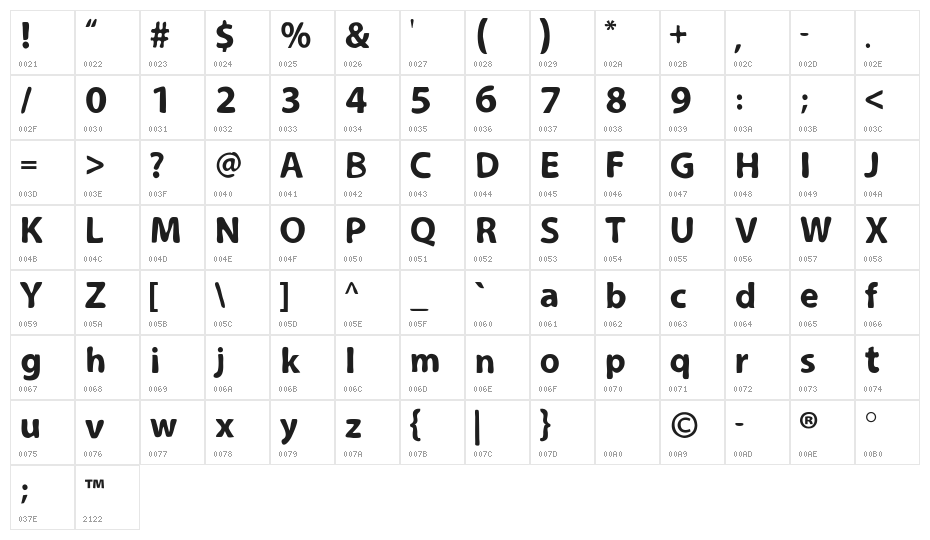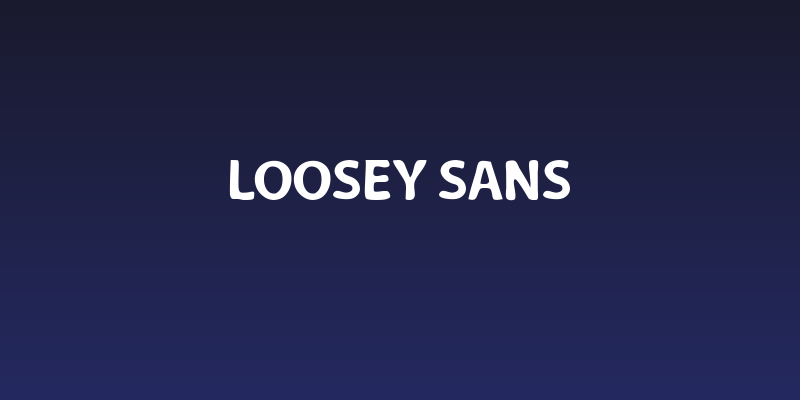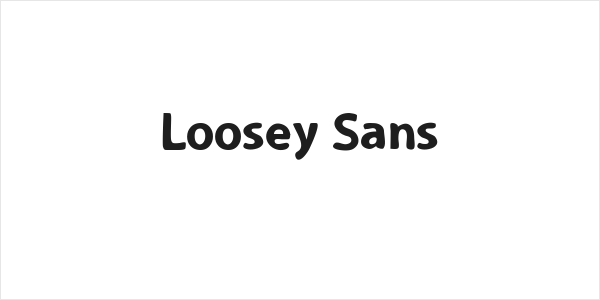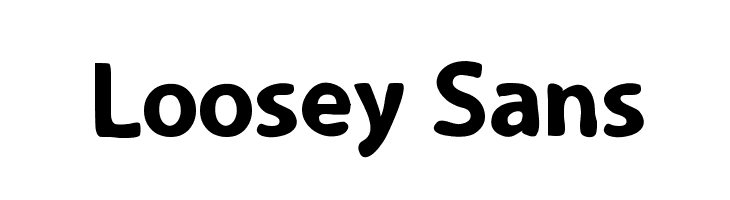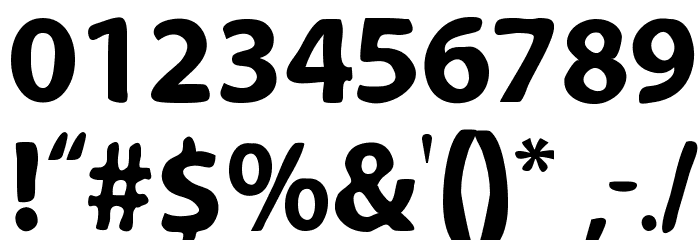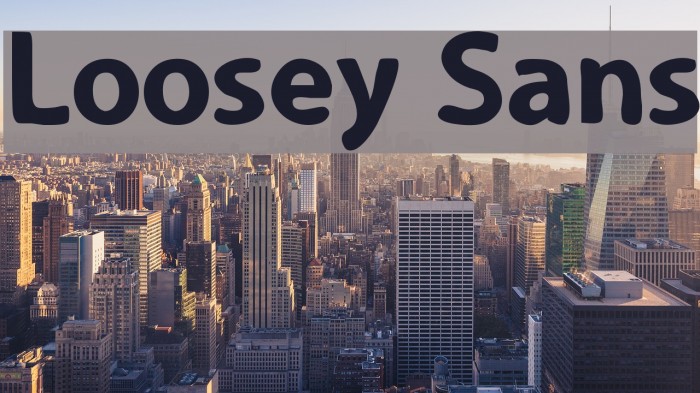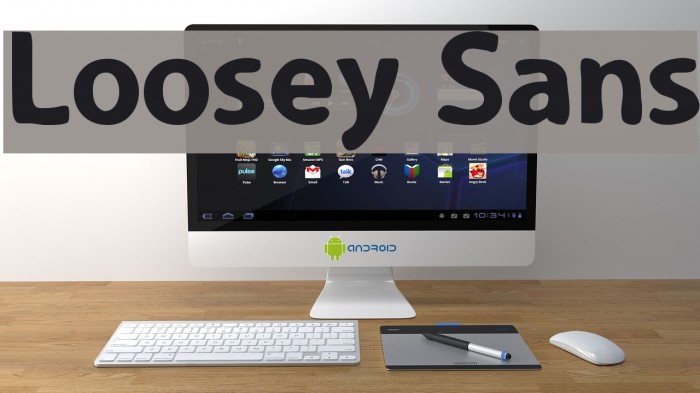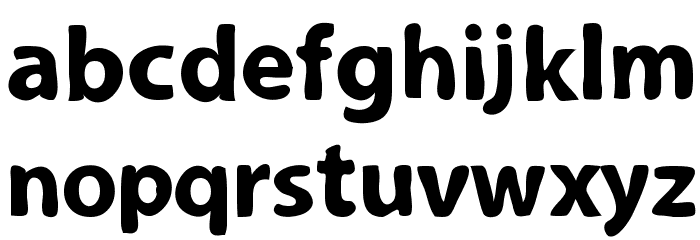
Loosey Sans Font
Loosey Sans Description
This font features a playful and rounded design, characterized by its smooth curves and slightly irregular shapes. The letters have a friendly and approachable appearance, making them suitable for casual and informal contexts. The overall style is bold and slightly whimsical, with each character maintaining a consistent thickness throughout. The numbers and special characters share the same playful aesthetic, ensuring a cohesive look across all text elements. The font's design is versatile, lending itself well to projects that require a touch of personality and warmth.
| Overall Style | Playful |
| Proposed Projects | Ideal for children's books, playful branding, casual invitations, and creative posters. |